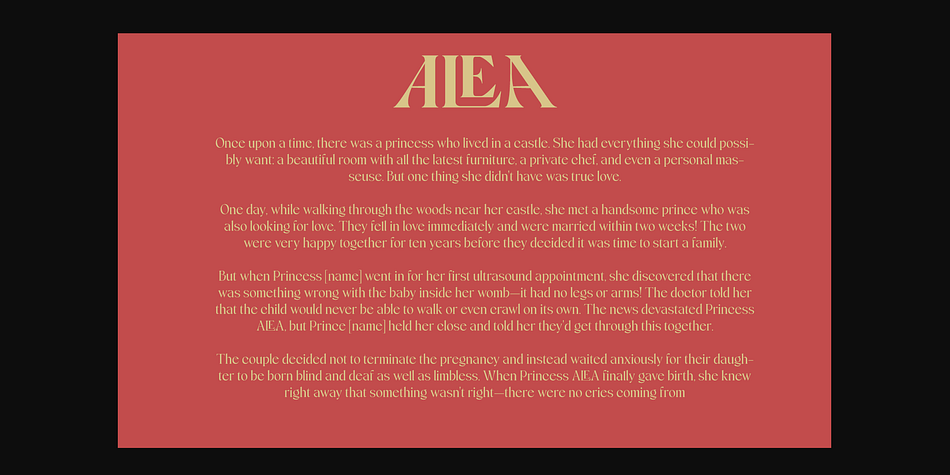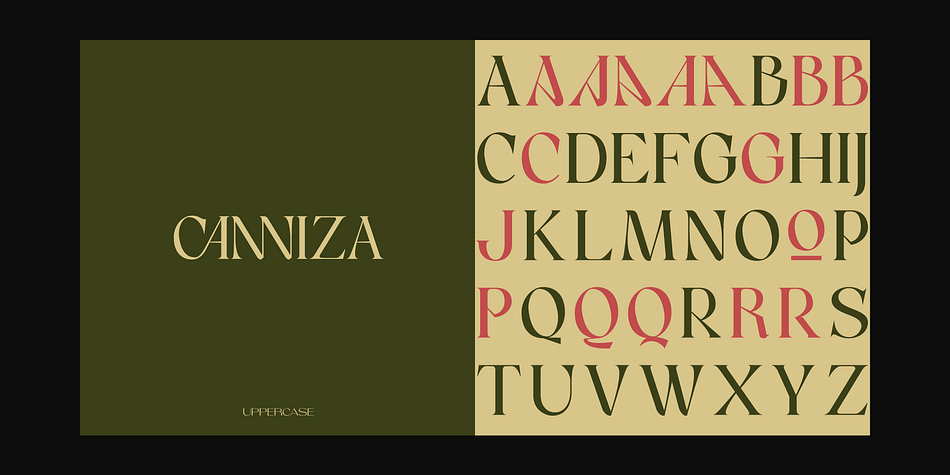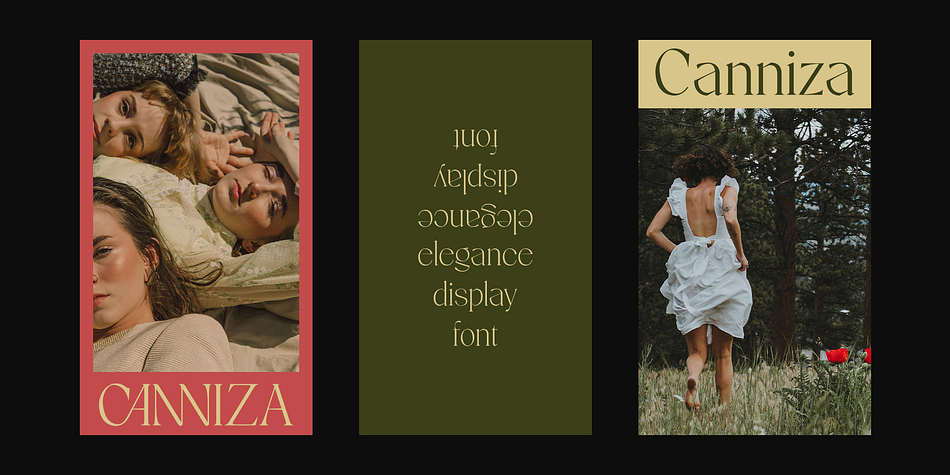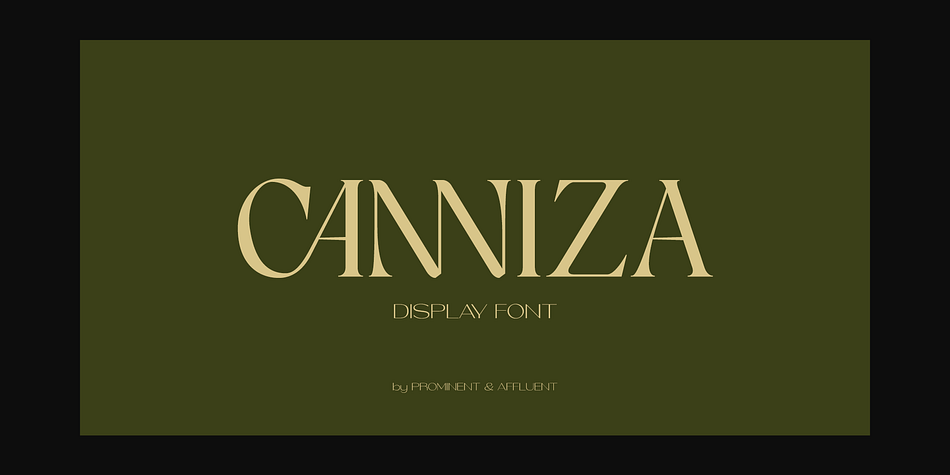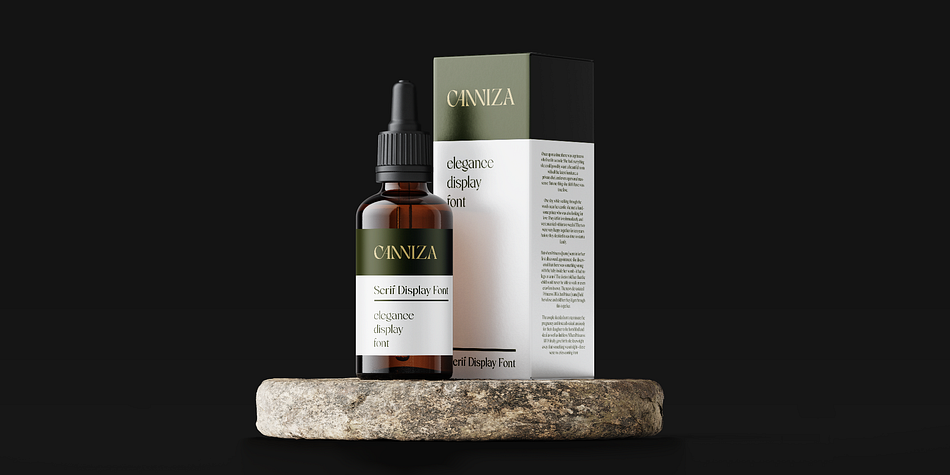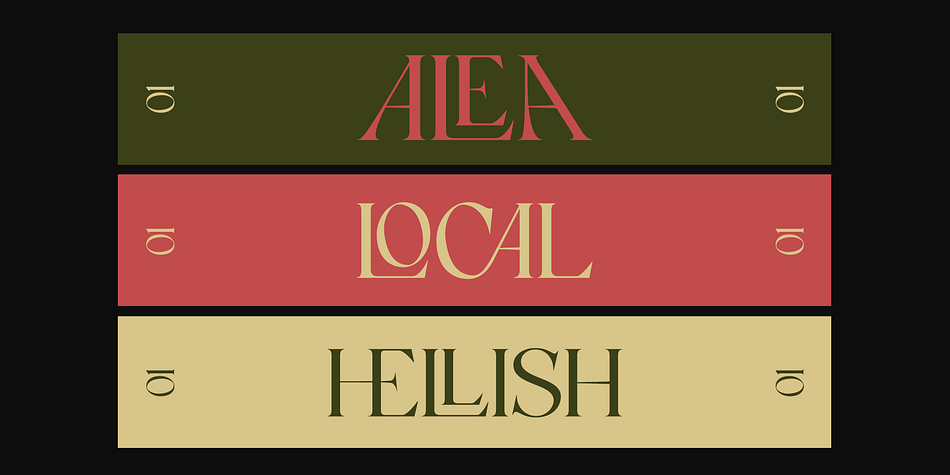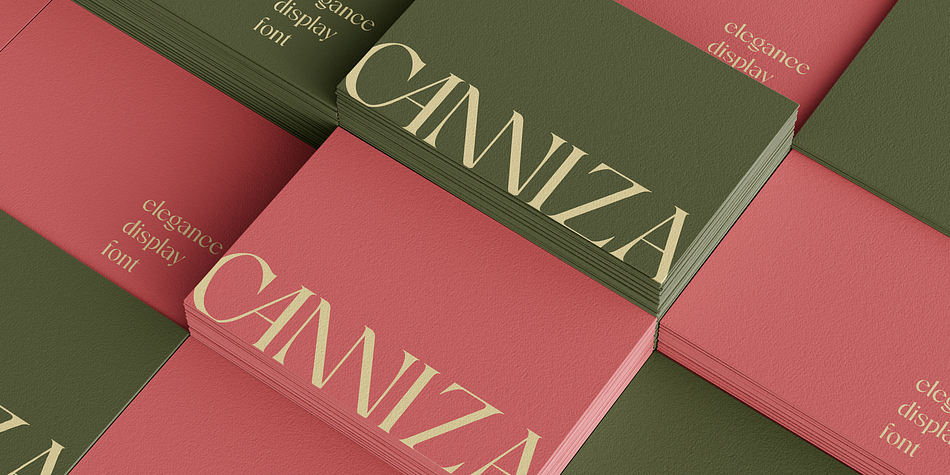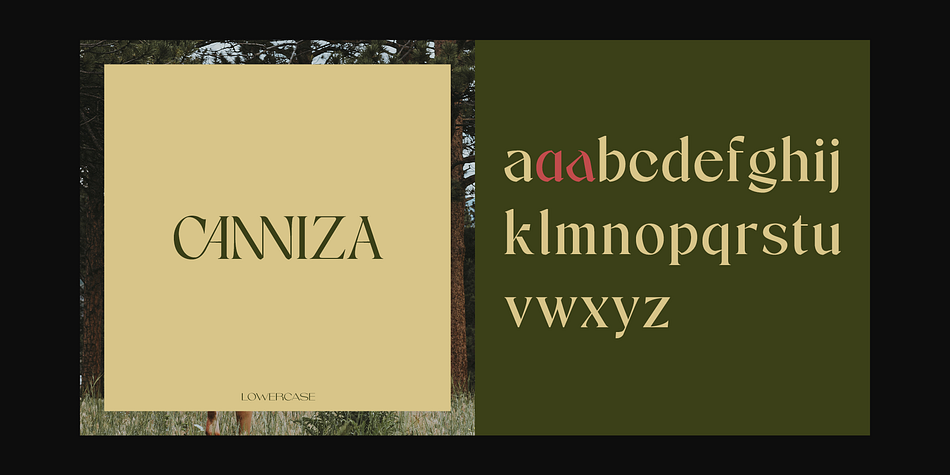
Canniza
Canniza is a display serif font family. This typeface has nine styles and was published by Prominent & Affluent.
Experience the timeless allure of Canniza, a meticulously designed serif font tailored for larger displays. This exquisite typeface offers a range of eight weights, spanning from the delicate finesse of ‘thin’ to the commanding presence of ‘bold’.
Canniza marries the enduring charm of classic serifs with a touch of contemporary finesse. Its sleek lines and carefully crafted letterforms project a refined aesthetic, making it a versatile choice for a multitude of applications.
Whether you’re crafting sophisticated logos, elegant invitations, or polished editorial layouts, Canniza is your go-to font for projects that demand both grace and impact. Elevate your designs with Canniza Typeface and let every display exude an air of timeless sophistication.